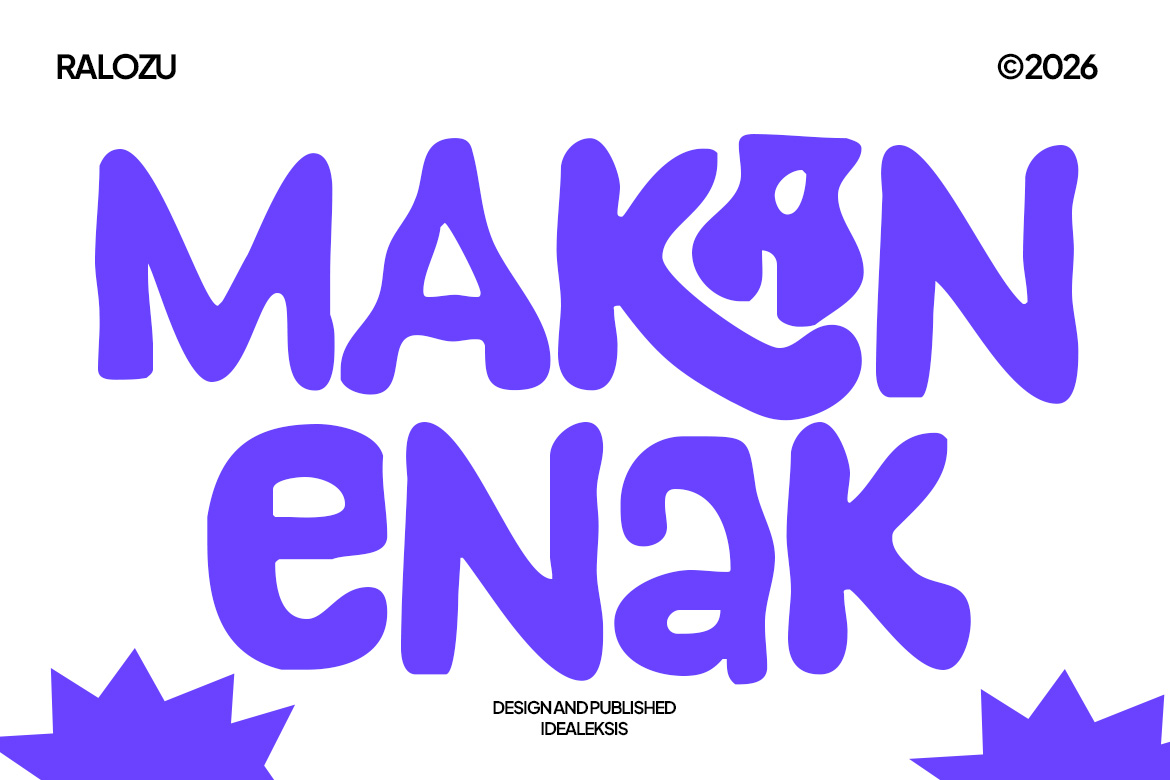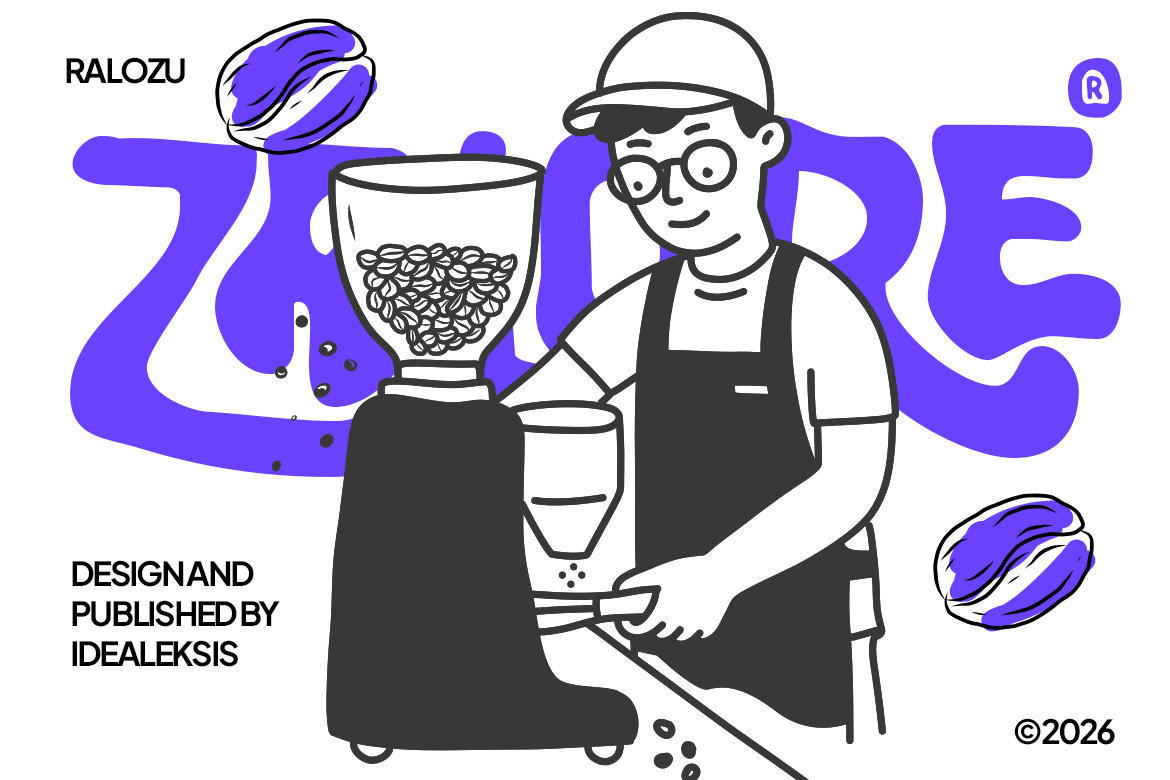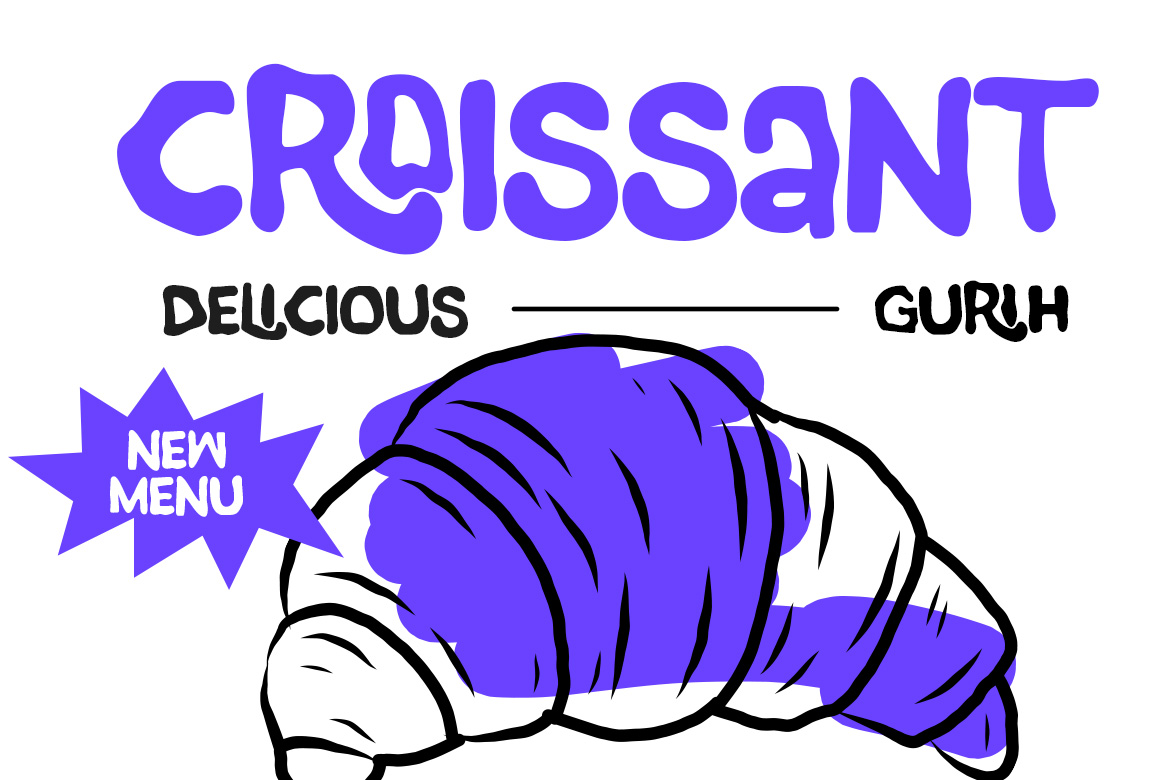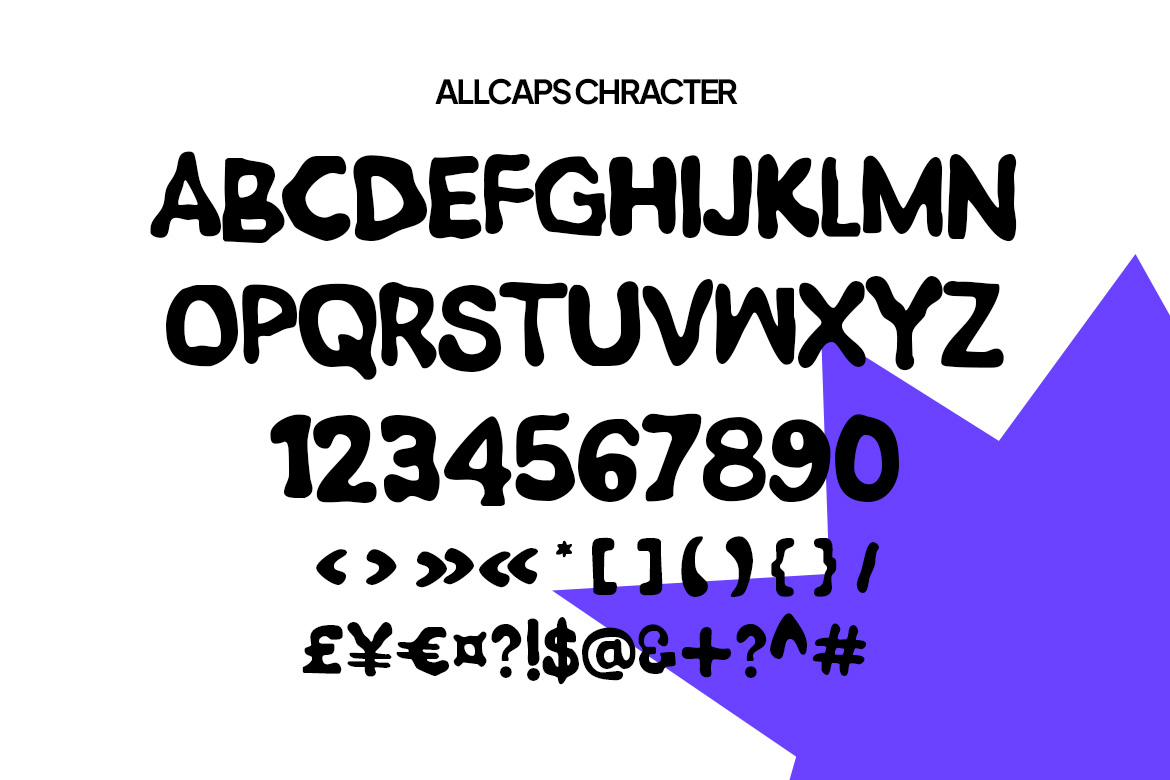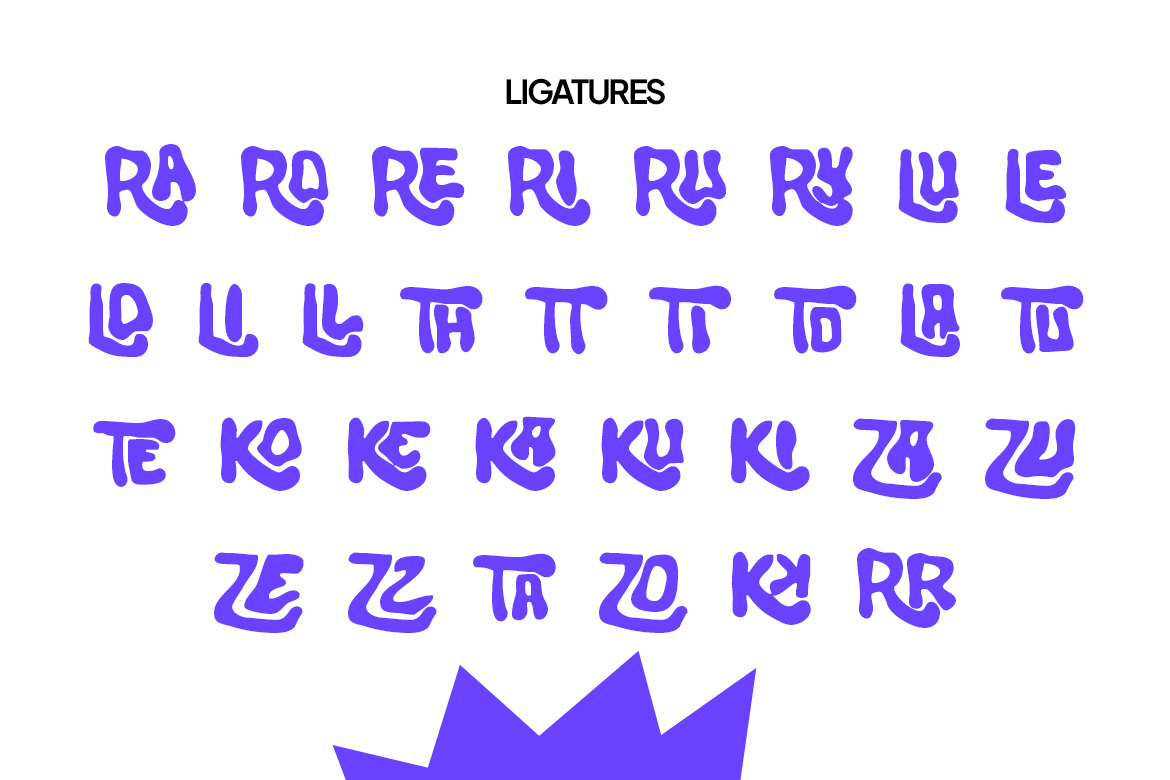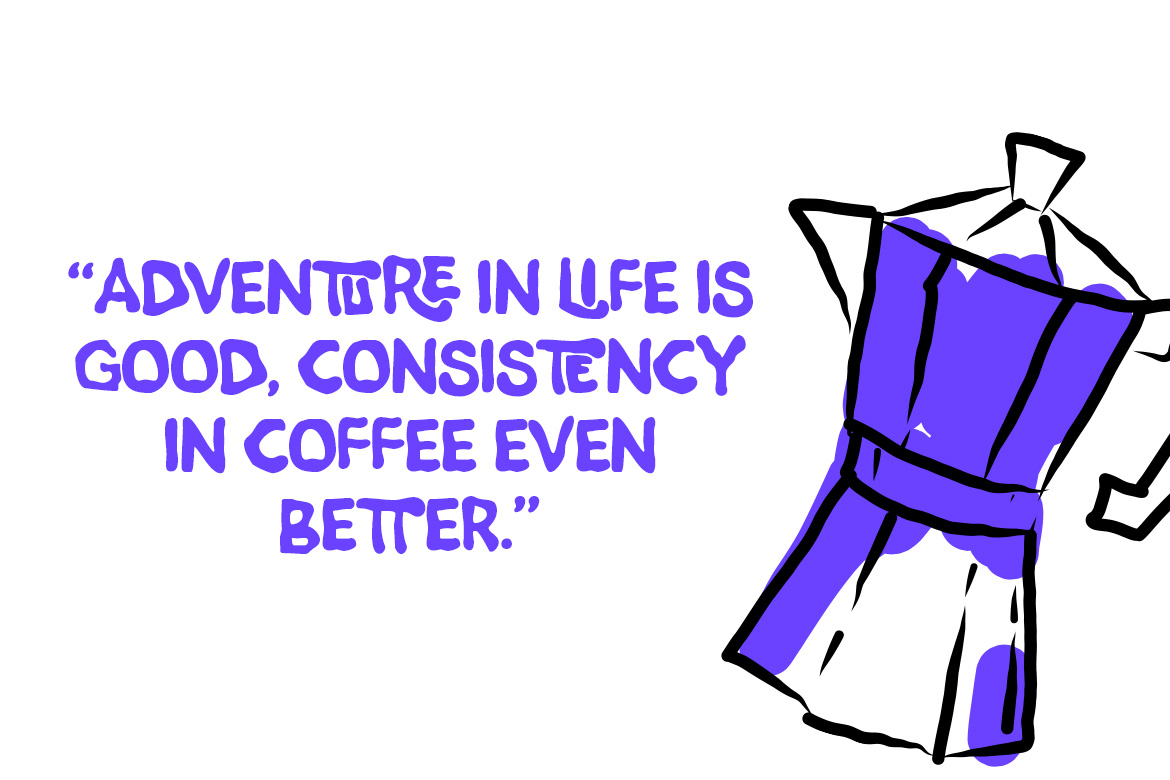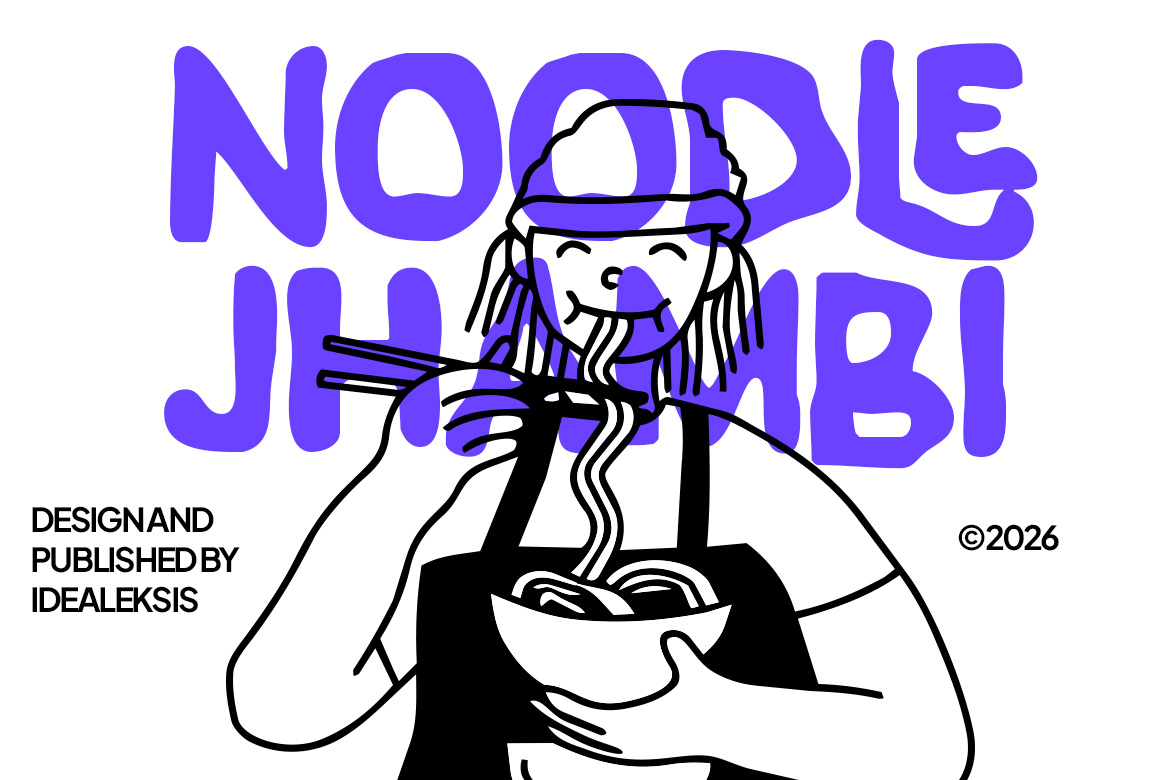
Ralozu
Ralozu is a bold, wavy display typeface with a dynamic and artistic flair. Its thick, undulating letterforms create a sense of rhythm and movement, giving the text a playful yet striking presence. The font’s fluid curves and vibrant personality make it ideal for creative posters, experimental branding, and designs that aim to capture attention with a sense of fun and originality. Perfect for Bakery and café branding Food and beverage logos Restaurant menus and signage Coffee shop and donut shop designs Food packaging and labels Social media food promotions Kitchen-themed posters and prints Culinary blogs and recipe graphics What's Included? Uppercase ( Allcaps ) Numbers & Punctuation Ligature Multilingual Support Format File : TTF & OTF,WOFF,WOFF2 Works on PC & Mac Thank you for choosing this font!